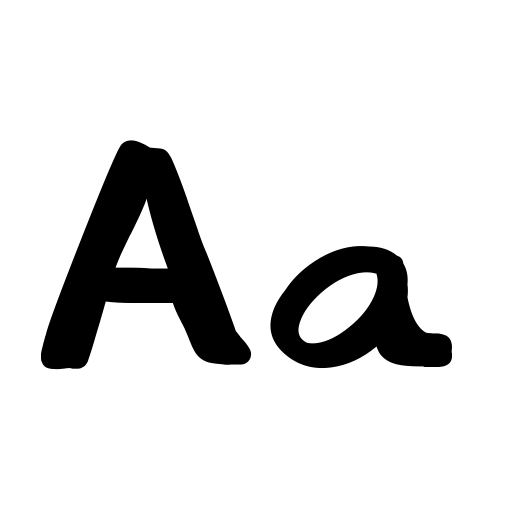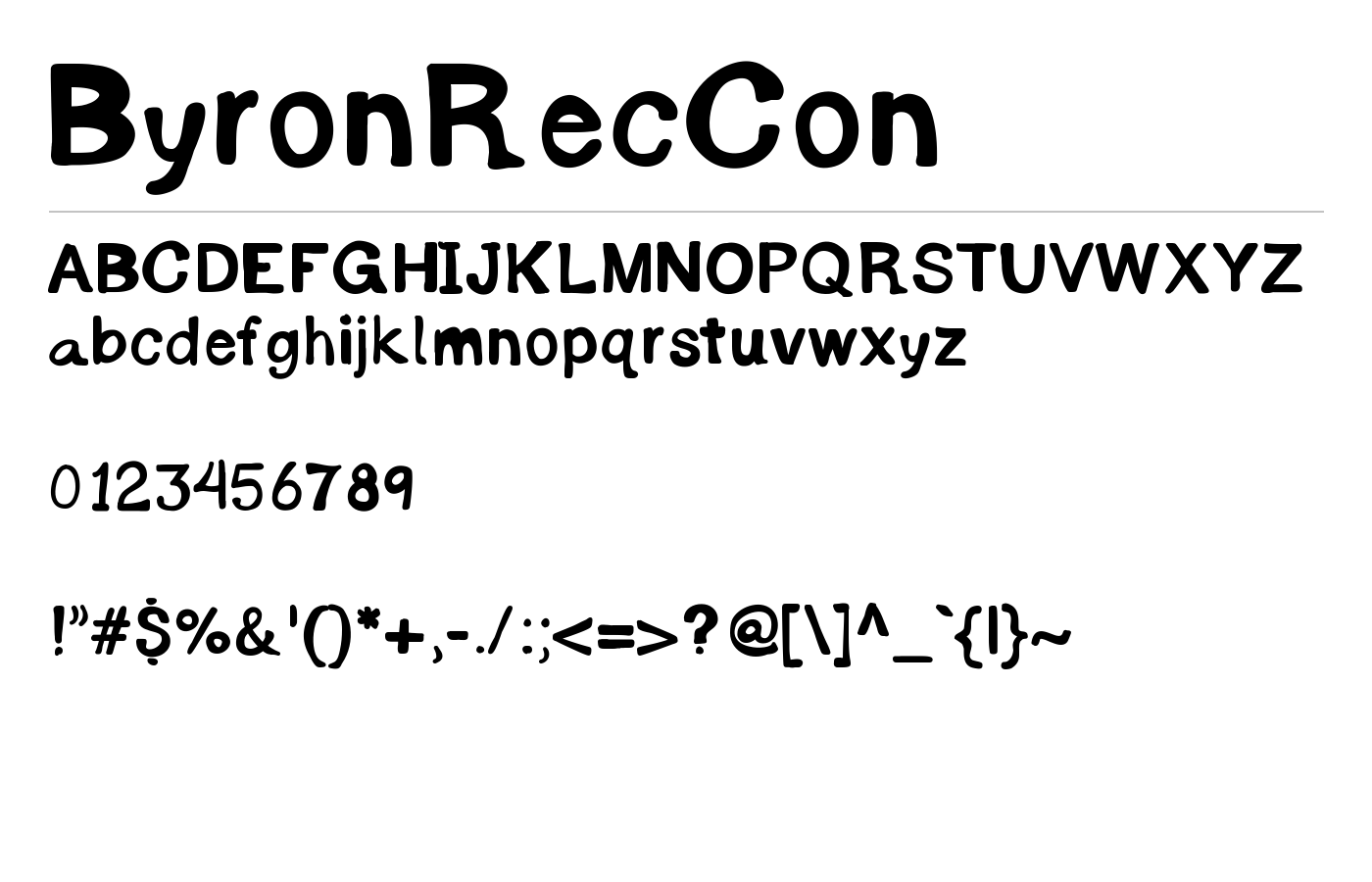
ByronRecCon is a playful, sans serif font with a hand-drawn feel that combines uneven stroke widths and quirky letter shapes for a casual, friendly appearance. Its moderate x-height and slightly irregular forms make it perfect for designs that want to convey warmth and approachability, such as children’s books, informal branding, or fun posters. This font works well in headlines or short texts where a whimsical, personal touch is desired.
ByronRecCon Font
About ByronRecCon Font